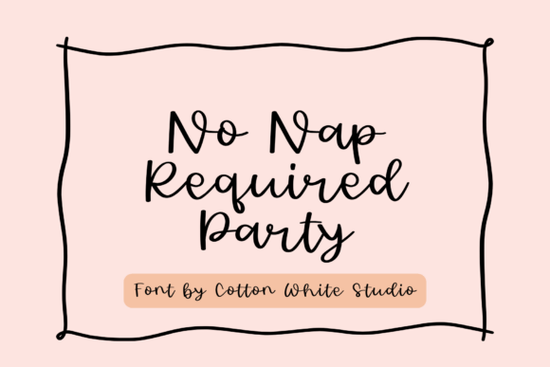
If you’ve been searching for a handwriting font that feels personal without looking sloppy, No Naps Required Party might be exactly what you need. This charming handwritten script adds a warm, handcrafted feel to everything from wedding stationery to social graphics. Its flowing letterforms and authentic hand-drawn texture make it a favorite among crafters, small business owners, and print-on-demand designers who want their work to look approachable and full of personality.
What exactly makes this font different from other handwriting scripts?
Handwritten script fonts are everywhere, but many of them miss that genuine, unforced rhythm you get from real pen-on-paper writing. No Naps Required Party captures that organic flow. The letters join together naturally, with subtle variations in thickness and slight imperfections that mimic actual hand lettering. This isn’t a stiff, overly uniform script – instead, it has a playful, almost whimsical energy that still stays legible.
Designers and crafters often use it for branding projects, logo mockups, T-shirt designs, and mug sublimation. The relaxed vibe also fits beautifully on thank-you cards, baby shower invitations, and planner stickers. Because the font includes a full set of uppercase and lowercase characters, numerals, and punctuation, you can create complete sentences that look as if you took the time to write them out by hand.
How can I use a handwritten script like this without making my design look messy?
When you’re working with a font that has so much movement, a little restraint goes a long way. Here are a few practical tricks that help you keep the design clean while still letting the script shine:
- Pair it with a simple sans-serif. Use a neutral typeface like Montserrat or Open Sans for secondary text, so the handwriting becomes the focal point without competing.
- Watch your spacing. Give the script some breathing room. Increase the line height slightly and avoid cramping it into a tight box.
- Limit the number of words. Script fonts look best for short phrases, headlines, or names. Save long paragraphs for a cleaner font.
- Use contrasting colors. A dark script on a light background, or white ink on a kraft paper texture, instantly creates that handmade look.
Is this font easy to read for invitations and branding?
For the most part, yes – especially at larger sizes. The letters in No Naps Required Party have clear, recognizable shapes, even with the flowing connections. At smaller sizes, like on a business card subtitle or a social media caption overlay, it remains fairly readable, though you might want to increase the tracking a touch if you’re working with long names or addresses.
Many wedding invitation designers love this style because it brings a personal, heartfelt feel without sacrificing legibility. If you’re worried about certain letter combinations getting tangled, simply test the specific words you’ll use before committing. Most modern design tools let you apply stylistic alternates or manually adjust spacing, so you can tweak until it looks just right.
What other fonts pair nicely with No Naps Required Party?
A crisp modern sans-serif, like a geometric or humanist style, is the most reliable partner. The contrast between structured lines and the freeform script creates balance. For a more playful brand, you might even combine it with a chunky serif or a clean slab.
If you love the warm handwritten idea but want to explore slightly different moods, there are a few other script fonts you may enjoy. Sweet Hearts has a similar playful bounce with a slightly rounder, cozier feel. For a darker, more dramatic aesthetic, Midnight Ganache offers a rich, elegant handwriting style that works beautifully for nighttime event invitations or luxury branding. Both are worth a look when you’re building a shortlist of go-to handwritten fonts.
Where can I find more handwriting fonts like this one?
If you’re expanding your font collection, it’s smart to have a few similar options for different projects. Laila Dream brings a whimsical, lighthearted touch that’s perfect for children’s party graphics or cheerful social posts. Threesome, despite its name, is a charming script trio that gives you a mix of handwritten and semi-calligraphic styles in one package. For something more formal and signature-like, Darling Signature is an elegant choice that feels like real penmanship on wedding invitations and high-end stationery.
Each of these fonts offers its own personality, so you can switch things up depending on the tone you need – without losing that handcrafted edge.
Before you grab No Naps Required Party and start designing, run through this short list to make the most of it: